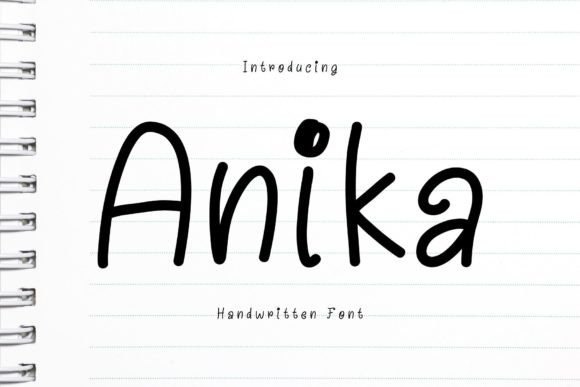
The Ultimate Guide to Anika Font: Adding Playfulness and Authenticity to Your Designs
I’ll never forget the time I was working on a project for a client’s children’s party invitations. I had a clear vision of what I wanted to create, but somehow, the design just wasn’t coming together. The issue? The font I was using was too formal, too stiff, and completely lacked the playful vibe I was going for. That’s when I stumbled upon Anika Font, and it was love at first sight! 💕
Anika is a cute handwritten font that embodies playfulness and authenticity, making it the perfect choice for all your favorite projects, such as blog posts, logos, branding, ads, invitations, greeting cards, planners, photo albums, decorations, and much more. In this comprehensive guide, we’ll dive into the world of Anika Font, exploring its features, how to use it, and what makes it so special.
An Honest Review of Anika Font
What I Love About Anika Font ✨
- ✅ Playful and authentic feel that adds a personal touch to any design
- ✅ Versatile and works well for a wide range of projects
- ✅ Easy to pair with other fonts for a unique look
- ⚠️ Some letters may appear a bit inconsistent in size, which can be a minor issue for certain designs
- ⚠️ Limited availability of OpenType features, but still offers a range of glyphs and stylistic alternates
Exploring OpenType Features, Glyphs, and Stylistic Alternates
- Swashes and flourishes to add a touch of elegance
- Stylistic alternates to change the look of certain letters
- Glyphs to add more variety to your text
The Backstory of Anika Font
Anika Font was designed with the intention of creating a font that feels like it was written by hand. The designer, who remains anonymous, wanted to capture the playfulness and authenticity of handwritten text, making it perfect for a wide range of creative projects. The font has since become a favorite among designers and crafters alike.
Q: What makes Anika Font so special?
A: Anika Font is special because of its playful and authentic feel, making it perfect for adding a personal touch to any design.
Q: Is Anika Font suitable for body text?
A: While Anika Font is highly legible, it’s best suited for headings and titles. For body text, you may want to choose a more traditional font.